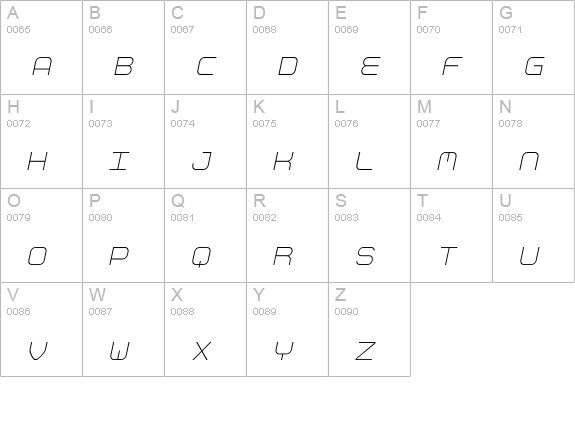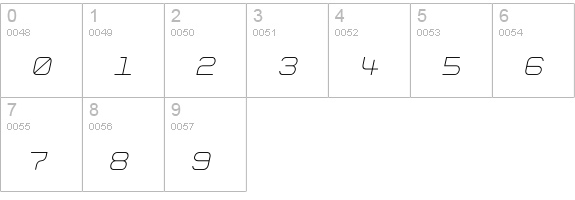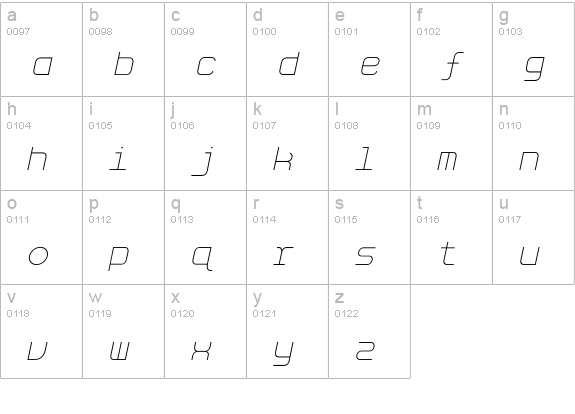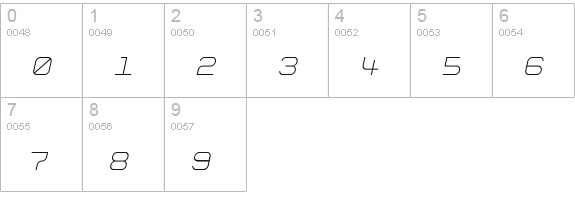
Aspirin-Refill-Dazed Font Details
Introducing Aspirin-Refill-Dazed font, a captivating display font that is sure to make your designs stand out. This unique font exudes a sense of whimsy and creativity, making it perfect for a variety of projects. With its bold, eye-catching style, Aspirin-Refill-Dazed font is sure to make a lasting impression on your audience. What makes Aspirin-Refill-Dazed font even more appealing is that it is freely available to download at FontsMarket.com. That's right, you can easily access this stunning font and incorporate it into your designs without any hassle. Whether you're working on a poster, logo, or any other project, Aspirin-Refill-Dazed font is the perfect choice to add a touch of personality and flair. Download it today and let your creativity shine with this incredible font.